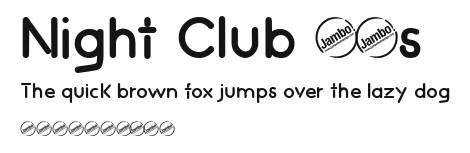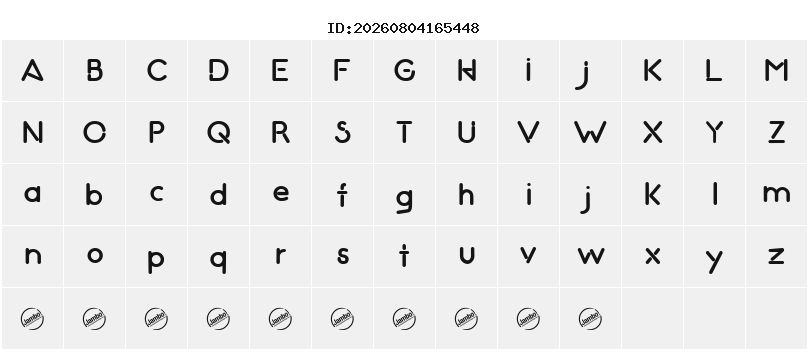
Night Club 70s Preview
• Font Name: Night Club 70s
• Designer: Jambo!
About Night Club 70s.ttf
Night Club 70s.ttf is a modern, elegant sans-serif font designed for ultimate readability and visual harmony. Perfect for branding, headlines, web design, and print materials.